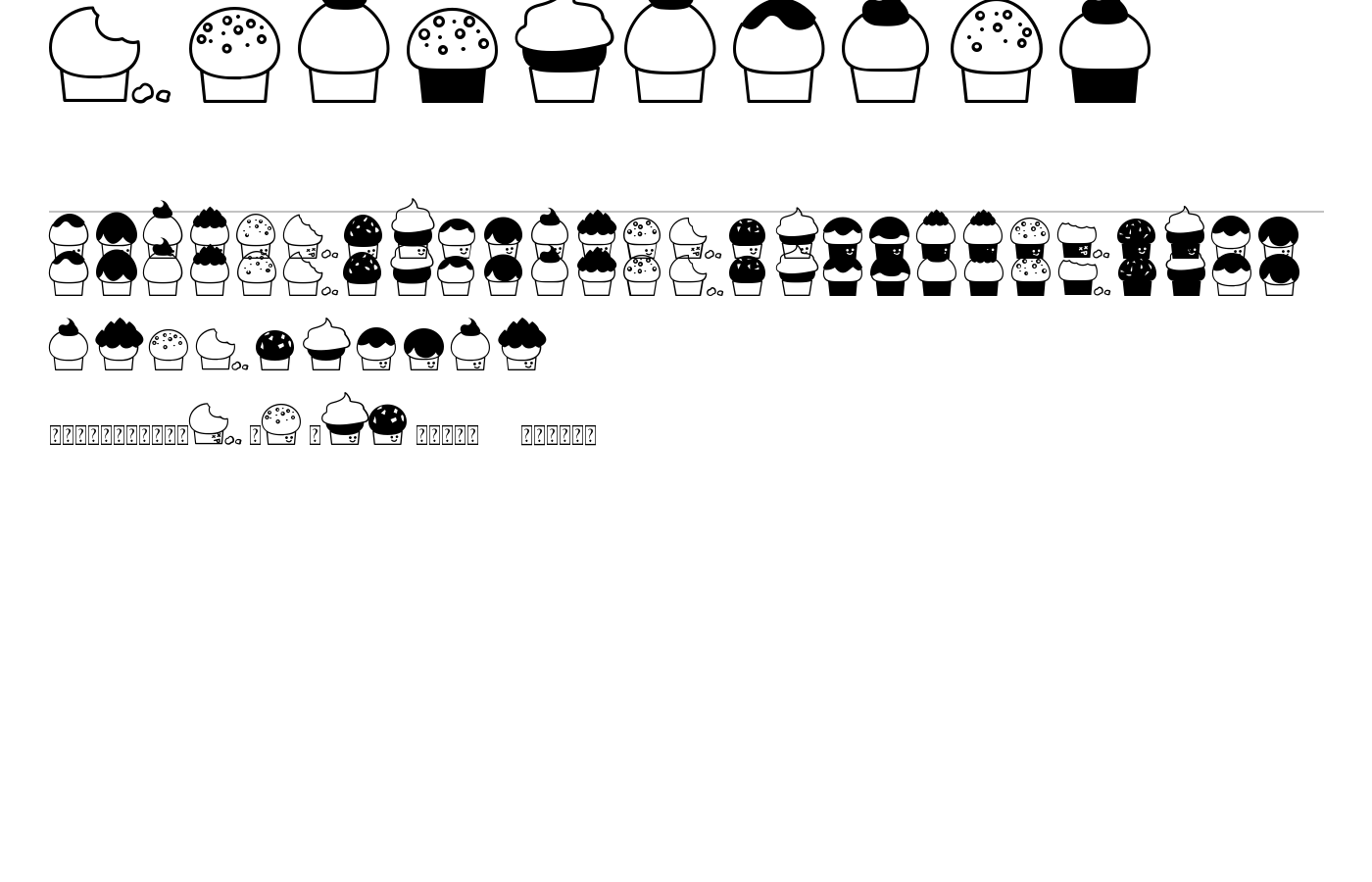
The 32cupcakes font is a playful, icon-based typeface featuring simple, cartoon-style cupcake illustrations instead of traditional letters. With its whimsical and charming design, it works best for fun, lighthearted projects such as party invitations, kids’ content, bakery branding, or any creative design that aims to evoke a sense of joy and sweetness. This font is perfect for decorative use rather than text-heavy layouts, adding a unique visual appeal where a cheerful mood is desired.
32cupcakes Font